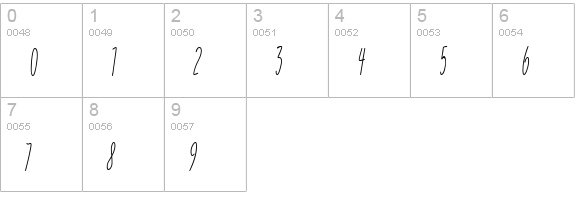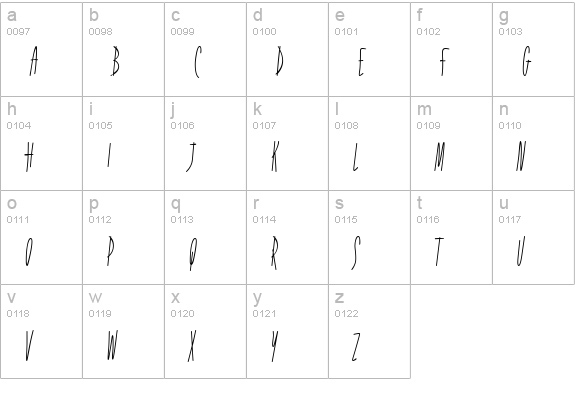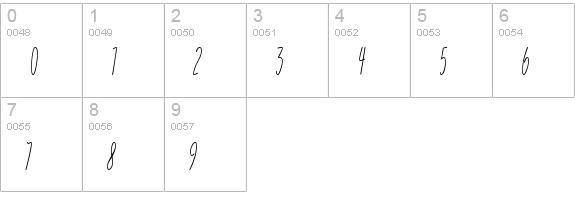
Fidelity Hour BTN Lt Font Details
Fidelity Hour BTN Lt font is a sleek and modern typeface that exudes sophistication and elegance. Its clean lines and balanced proportions make it perfect for a wide range of design projects, from branding to editorial design. The font's light weight adds a touch of delicacy and refinement to any text, making it ideal for conveying a sense of style and sophistication. What sets Fidelity Hour BTN Lt font apart is not only its timeless design but also the fact that it is freely available to download at FontsMarket.com. This means that you can easily access this high-quality font without any cost, allowing you to elevate your design projects without breaking the bank. Whether you're working on a personal project or a client's design, Fidelity Hour BTN Lt font is a versatile and reliable choice that will help you achieve a polished and professional look.